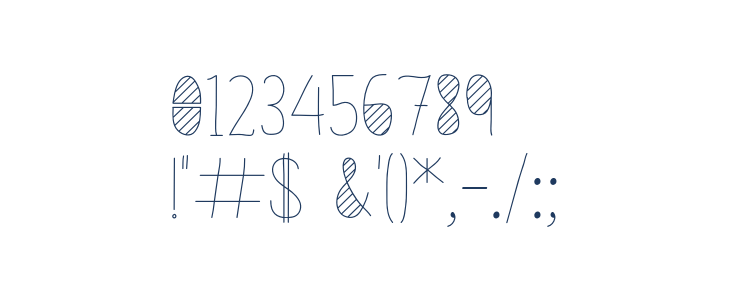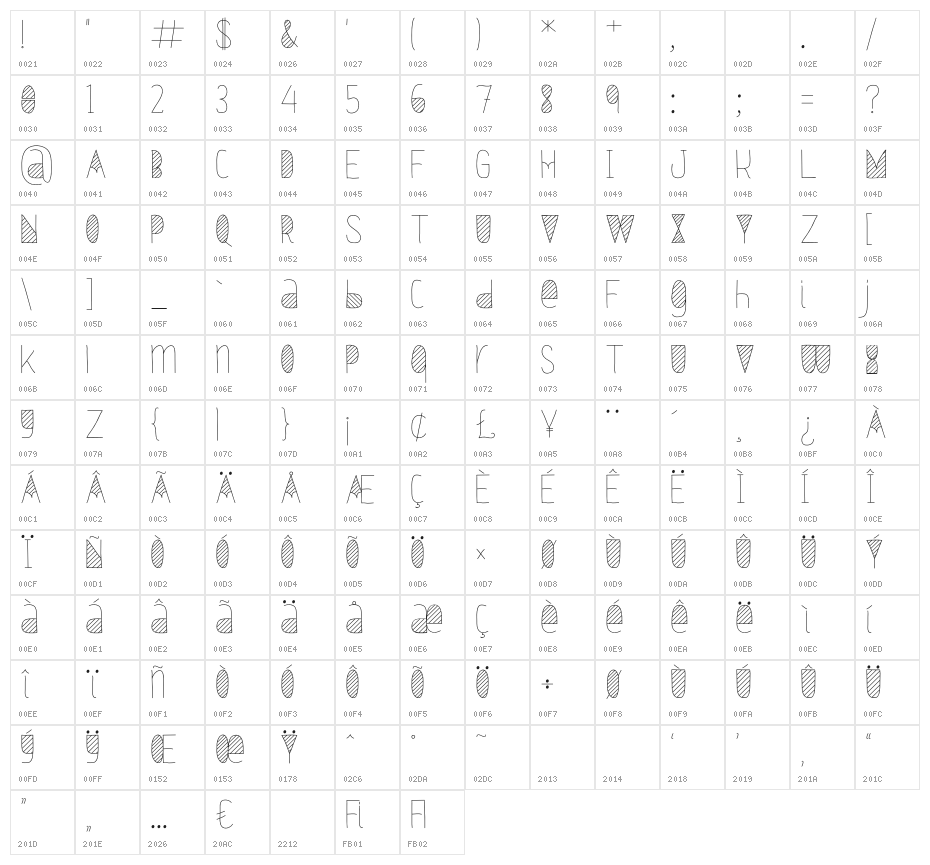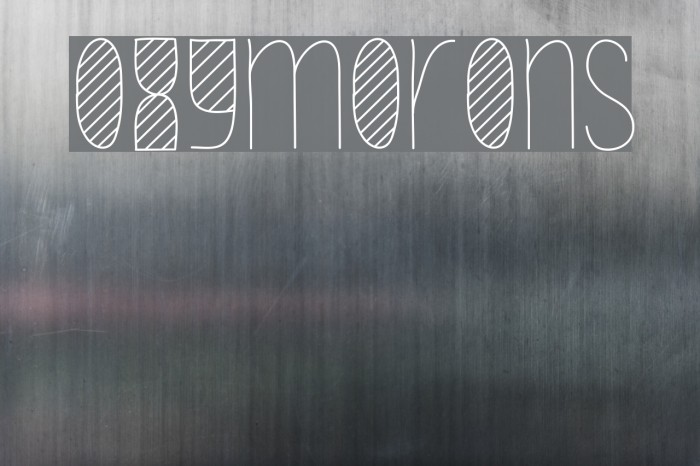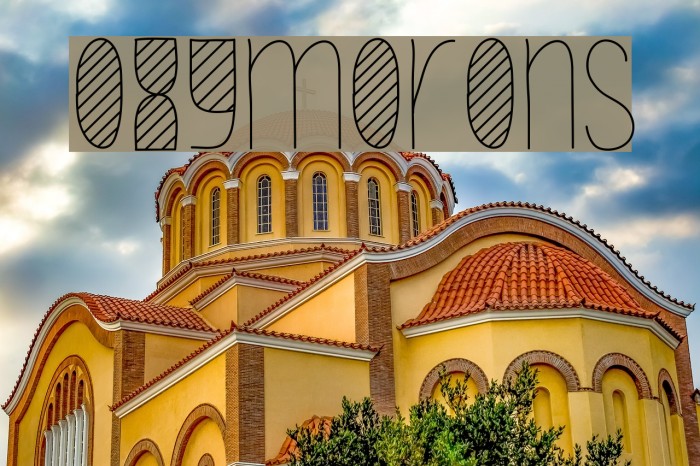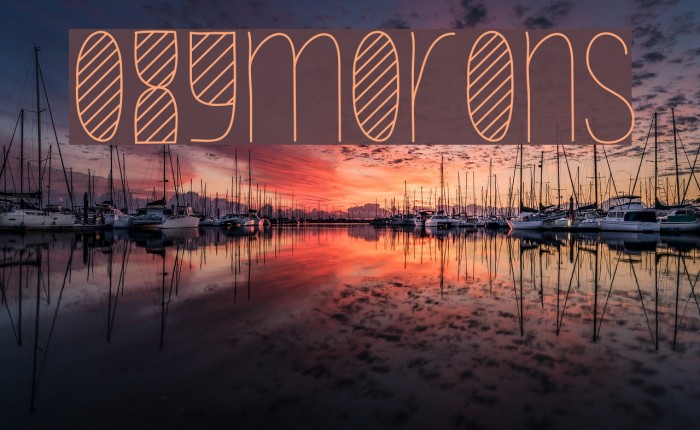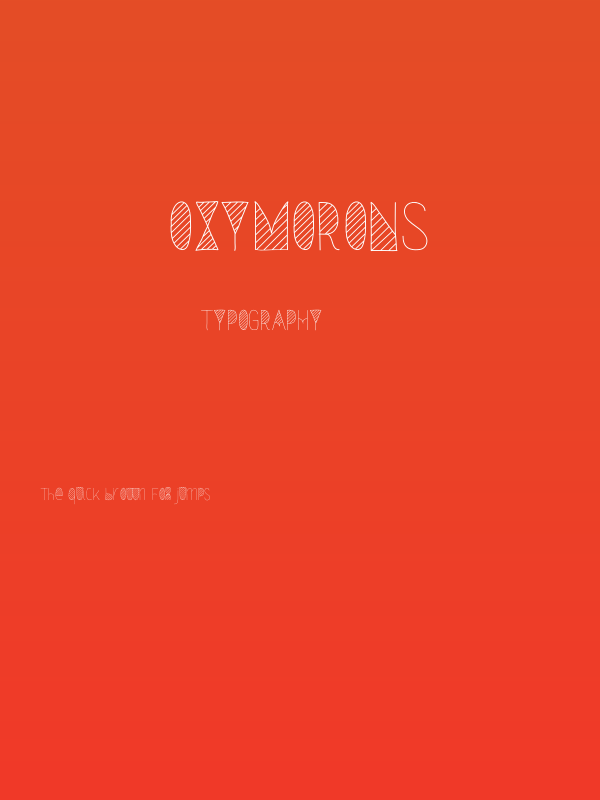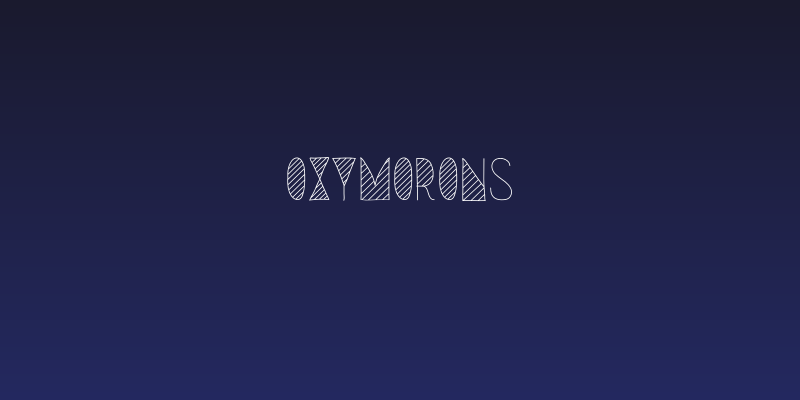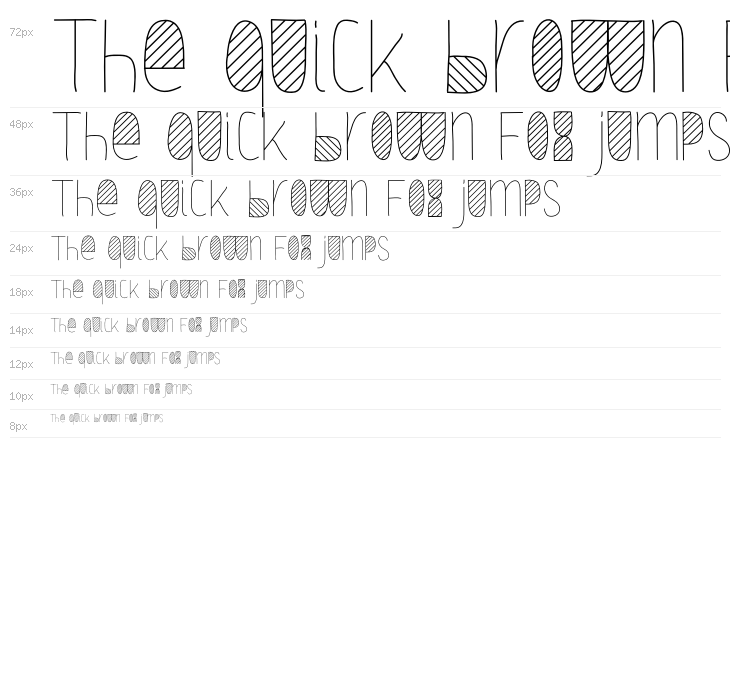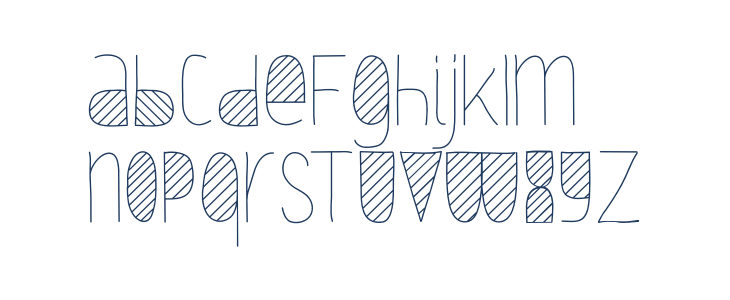
Oxymorons Font
Oxymorons Description
This font features a playful and whimsical design with a hand-drawn aesthetic. The uppercase and lowercase letters are characterized by thin, uneven strokes, giving it a casual and informal feel. Some letters are filled with diagonal lines, adding a unique texture and visual interest. The numerals and special characters maintain this quirky style, ensuring consistency across all glyphs. The overall appearance is light-hearted and artistic, making it suitable for creative projects that require a touch of personality and charm.
| Proposed Projects | Ideal for children's books, greeting cards, playful branding, and artistic posters. |